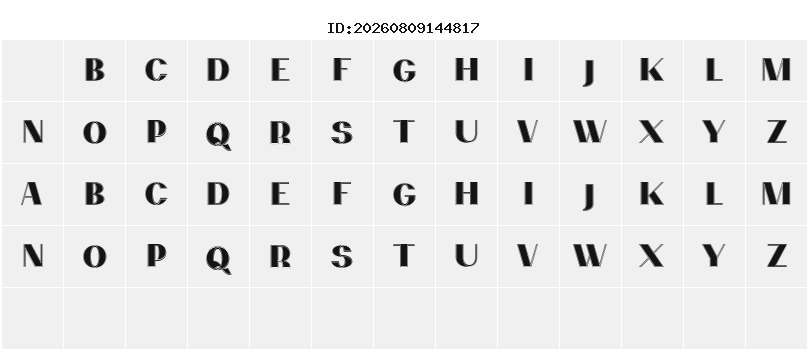
• Font Name: PassionSansPDcc
• Font Style: Contour
• Manufacturer: Prescott Design
About PassionSansPDcc.ttf
PassionSansPDcc.ttf is a modern, elegant sans-serif font designed for ultimate readability and visual harmony. Perfect for branding, headlines, web design, and print materials.